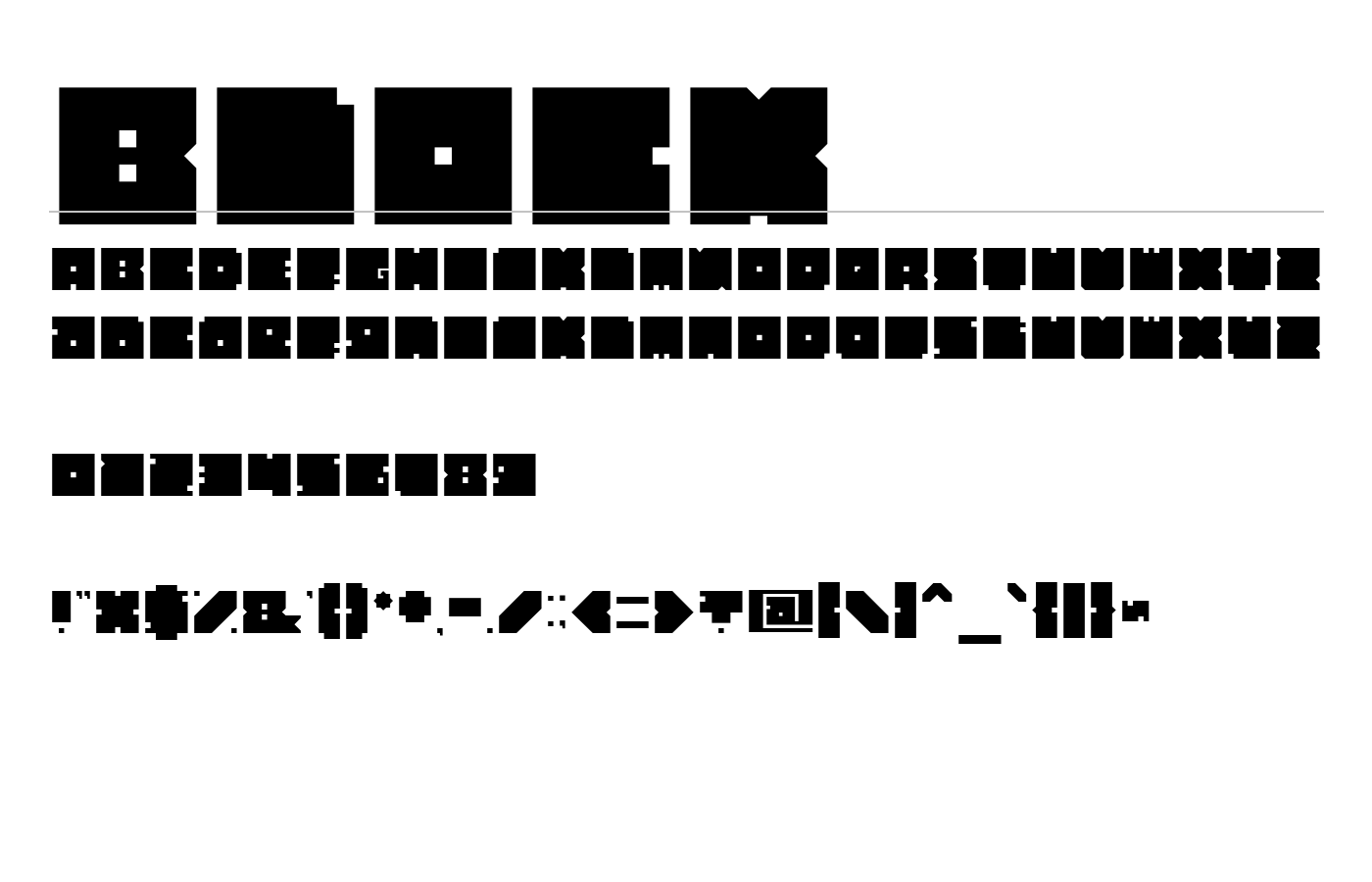
BLOCK is a bold, heavy-weight sans serif font with a solid, geometric structure that commands attention with its thick, uniform strokes and square shapes. Its strong, blocky letterforms give it a modern and industrial feel, making it ideal for striking headlines, logos, and branding that need to convey strength and impact. This font works best in designs where readability at large sizes and a powerful visual presence are key.
BLOCK Font
About BLOCK Font